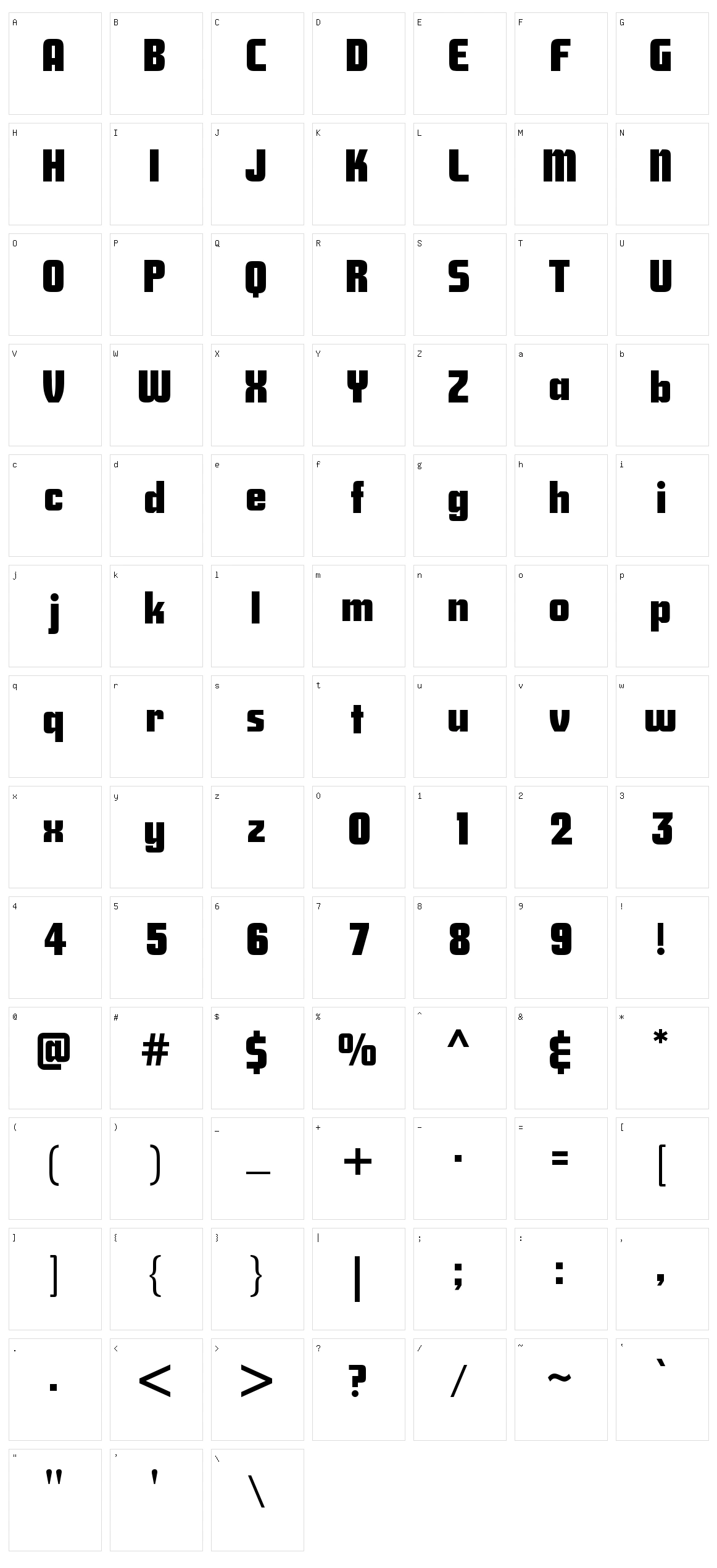
The computer font Savings Bond was created by
Harold Lohner, 1998, and placed into the public
domain by him.
Savings Bond was created in need from my recollection
of such a font. It turned out to resemble Futura
Display or Function Display.